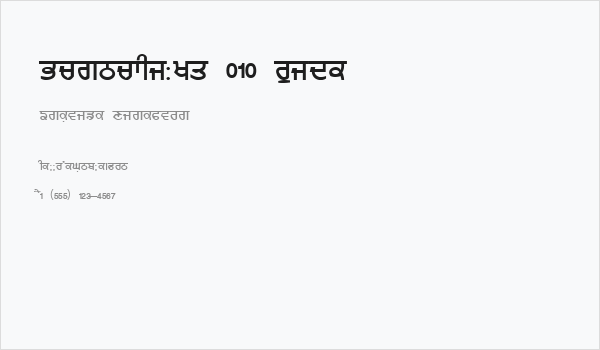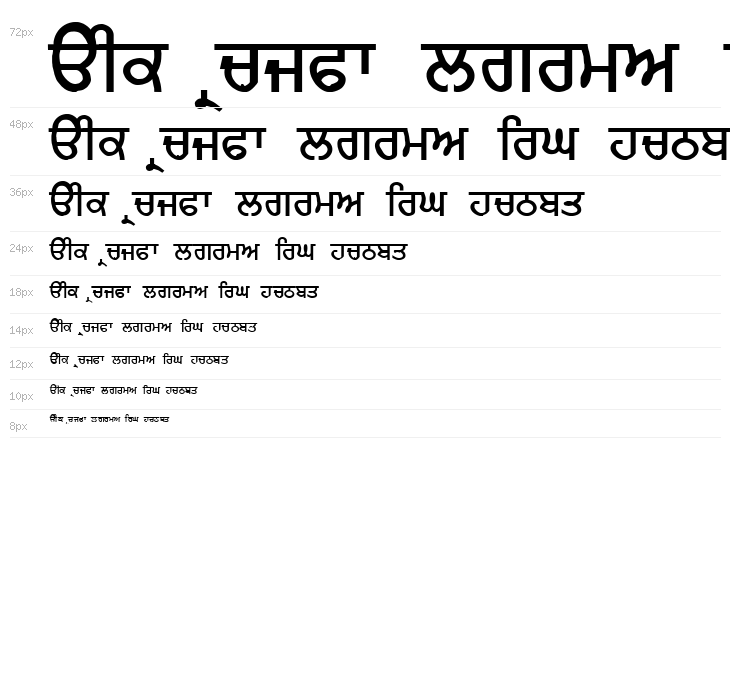
GurmukhiLys 010 Wide Font
GurmukhiLys 010 Wide Description
This font features the Gurmukhi script with a bold and clear design, making it highly legible for both print and digital formats. The characters are well-defined with consistent stroke thickness, providing a uniform appearance across all glyphs. The numerals and special characters are designed to complement the script, maintaining the overall aesthetic. The font's wide character spacing ensures readability, making it suitable for various applications. Its modern style is enhanced by the clean lines and balanced proportions, which contribute to its versatility.
| Use Case | Headlines, Body text, Educational materials |
| Proposed Projects | Ideal for educational materials, signage, digital content, and print media that require clear and accessible Gurmukhi script. |